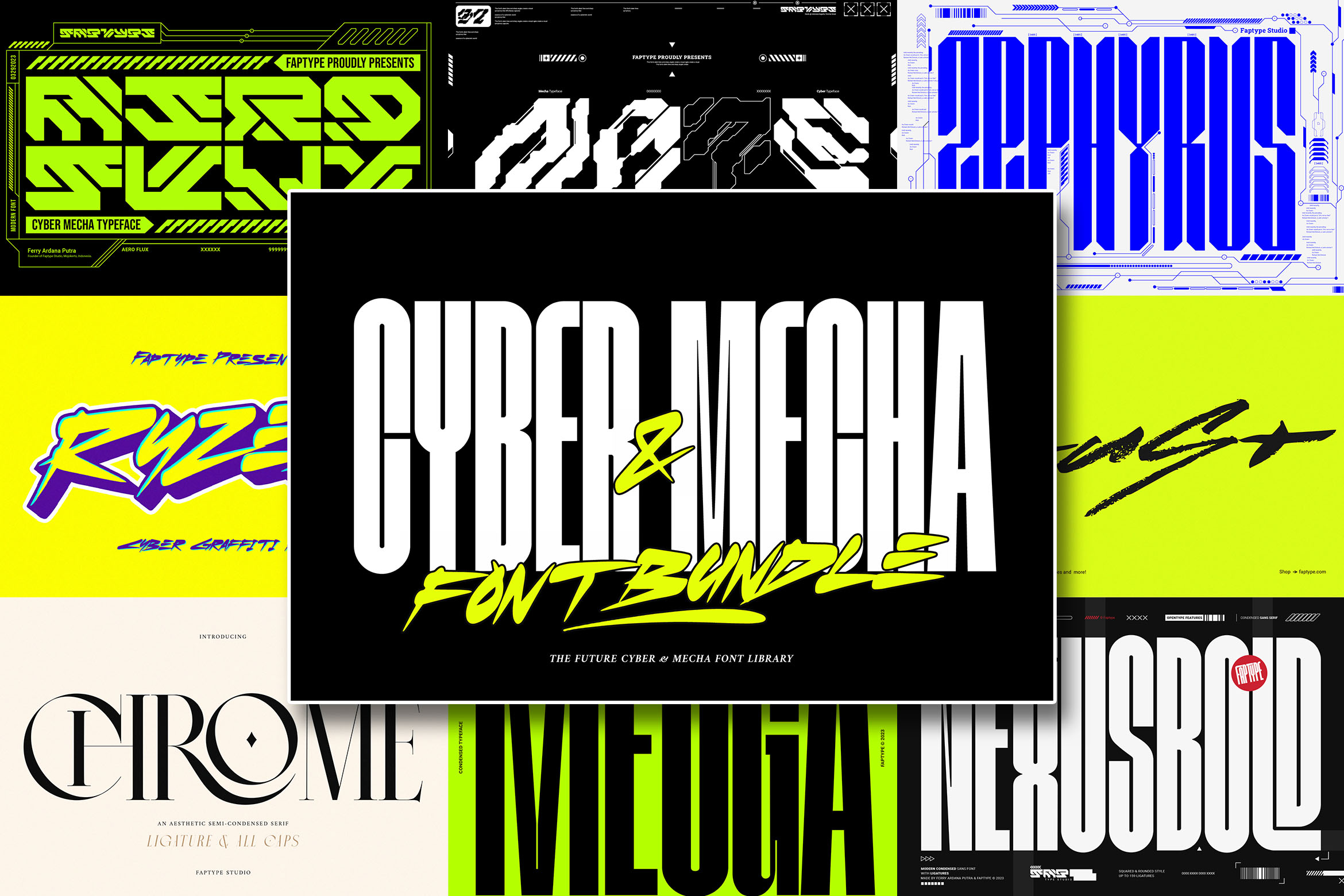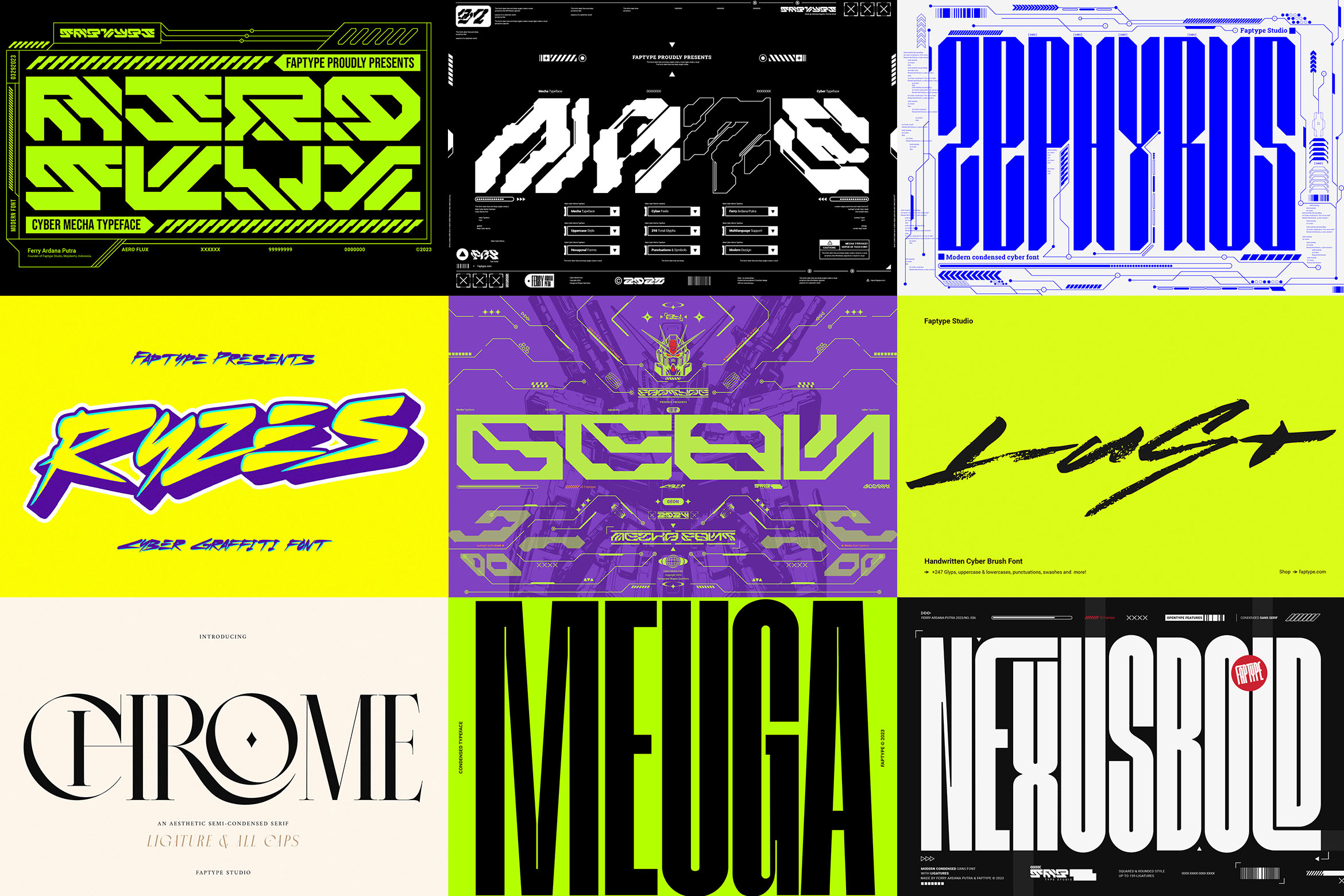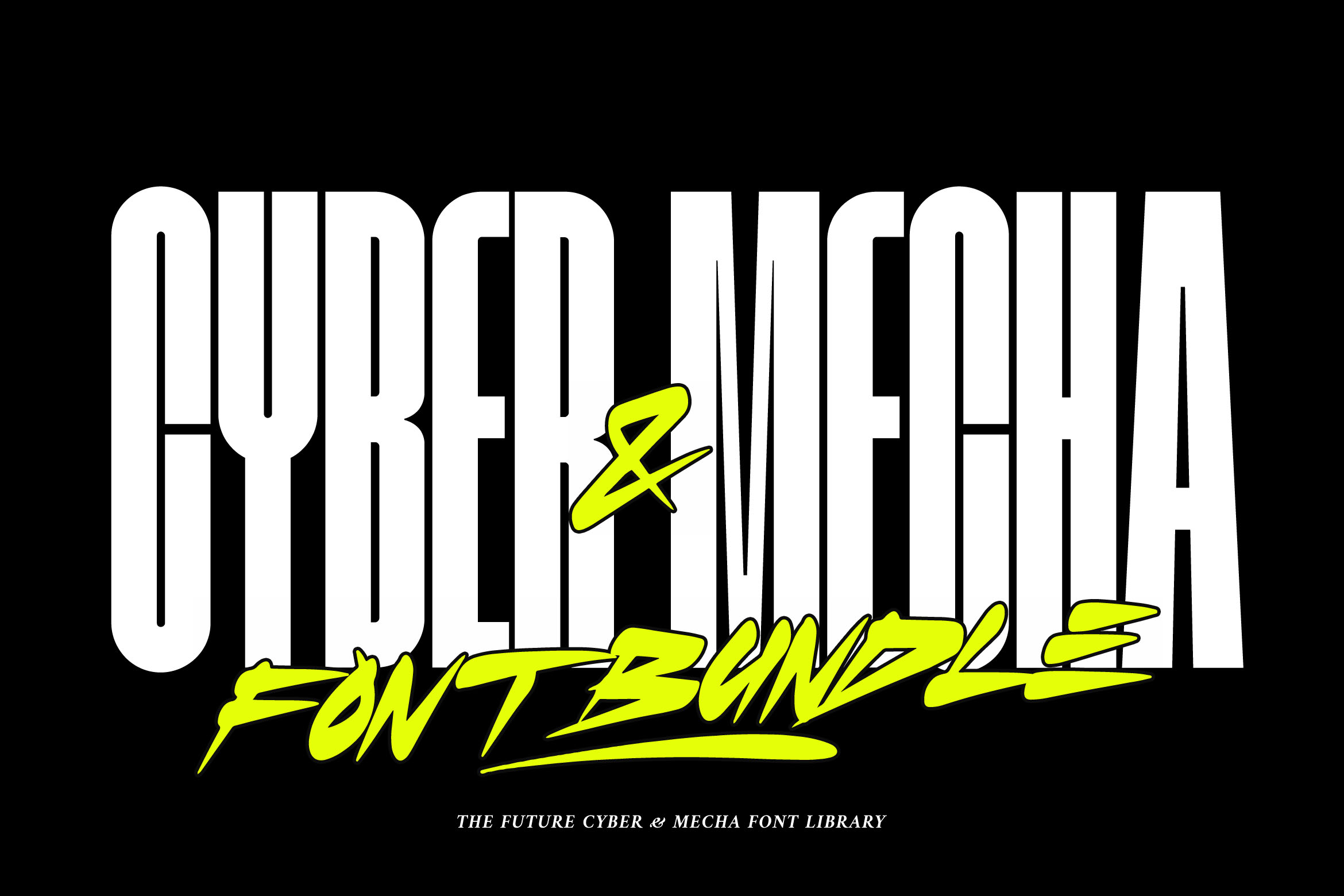
Future Cyber Font Library – 10 Futuristic & Mecha Typefaces
Looking for the Future Cyber Font Library to elevate your tech, gaming, and sci-fi branding projects? This curated collection brings together ten futuristic and mecha-inspired typefaces designed for digital creators who want bold, modern, and high-tech visual identities.
These fonts combine sharp geometry, cybernetic aesthetics, robotic structure, and sleek sci-fi details—making them perfect for UI/UX, gaming, esports, anime-inspired graphics, and modern branding.
What Makes the Future Cyber Font Library Special?
This bundle offers a cohesive set of cyberpunk and futuristic styles that work together effortlessly. Whether you’re designing for gaming interfaces, digital branding, posters, robotics themes, or sci-fi environments, the Future Cyber Font Library gives you a consistent and powerful visual system.
Included Fonts in the Future Cyber Font Library
1. Aero Flux – Modern Cyber Mecha Font
A sharp futuristic font with aggressive angles, perfect for esports, robotics, and high-tech branding.
2. Geon – Futuristic Rounded Geometry
A clean geometric typeface with a modern sci-fi feel ideal for interface design.
3. Mate – Condensed Cyber Display Font
A bold condensed font inspired by Japanese sci-fi posters and mech blueprints.
4. Nexusbold – Modern Condensed Tech Font
A sharp and powerful display font for tech companies, AI branding, and cyberpunk visuals.
5. Zephyrus – Futuristic Mecha Sans
Wide, dynamic, and inspired by mechanical structures—perfect for logos and UI titles.
6. Chrome Slab – Semi-Condensed Cyber Slab
A unique mix of industrial slab serif and cyberpunk design.
7. Meuga – Condensed Sans Serif Tech Style
Clean, versatile, and ideal for futuristic packaging, branding, and app UI.
8. Lust Cyber – Cyber Brush Glitch Style
A dynamic brush-meets-tech hybrid font perfect for anime, street cyberpunk, and motion graphics.
9. Ryzes – Cyber Graffiti Hybrid Font
A bold street-tech fusion font inspired by urban mech aesthetics.
10. Singo Sans – Modern Techno Sans Serif
A minimal futuristic sans serif ideal for titles, signage, and clean digital interfaces.
Why Designers Love This Cyber & Mecha Bundle
✔ Perfect for gaming and esports
✔ Ideal for tech startups and AI products
✔ Great for anime, mech, and cyberpunk branding
✔ Consistent futuristic themes
✔ Includes both clean and aggressive styles
✔ High commercial value for UI/UX and digital creators
Best Projects for This Bundle
Gaming UI and screens
Tech branding & startup identity
Esports team graphics
Robot & AI concept visuals
Anime-style mech posters
Cyberpunk visual design
App UI text and dashboards
Motion graphics & YouTube graphics